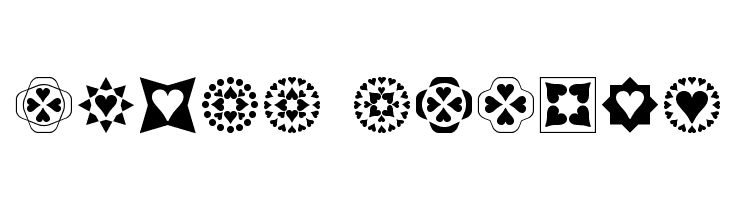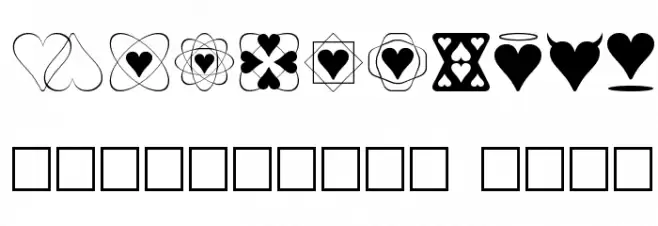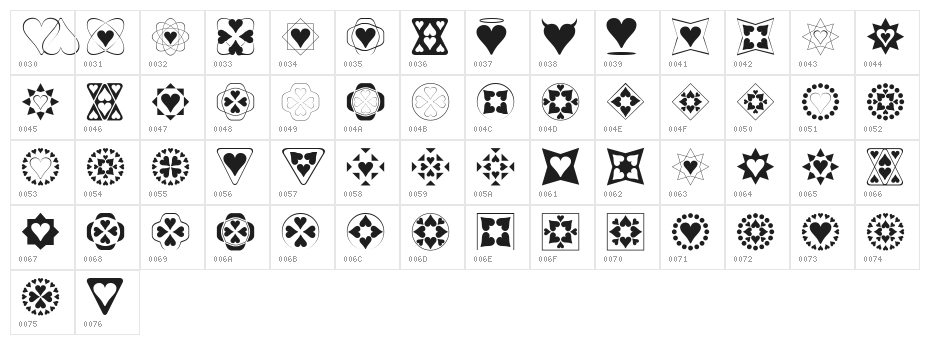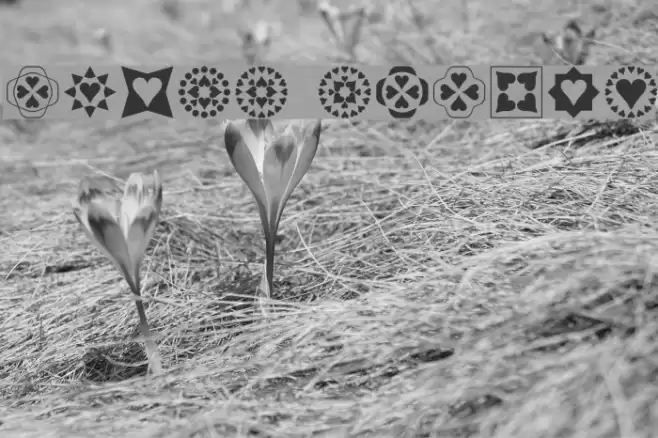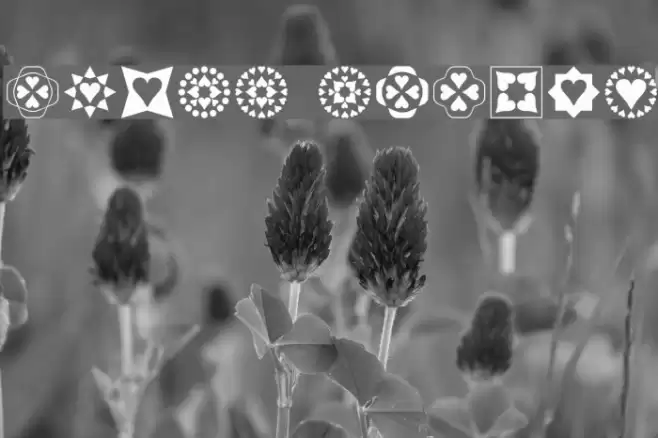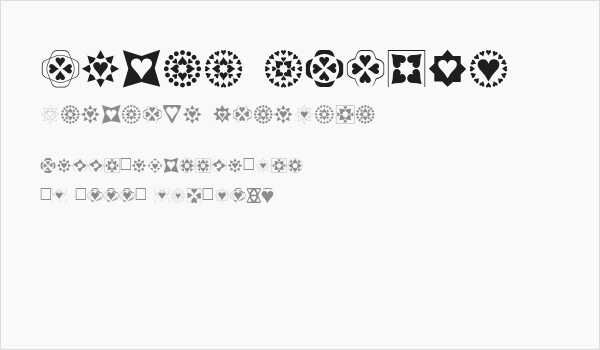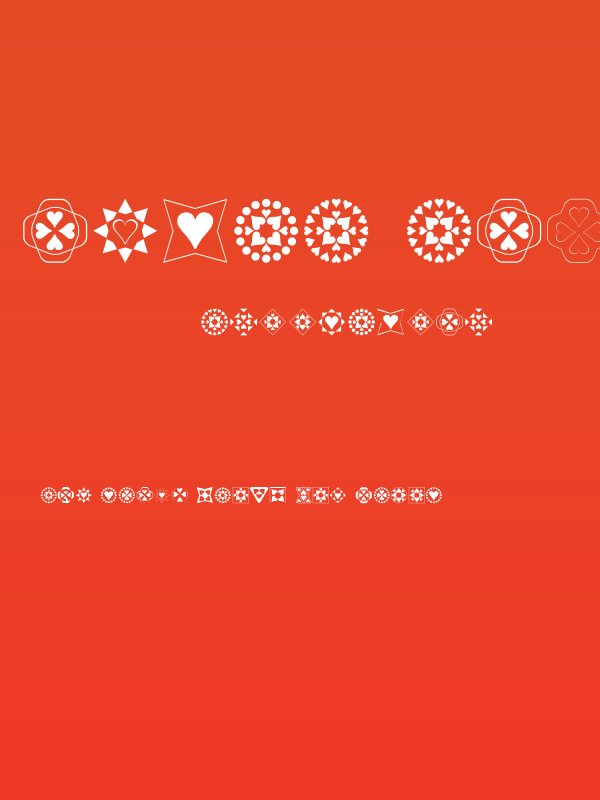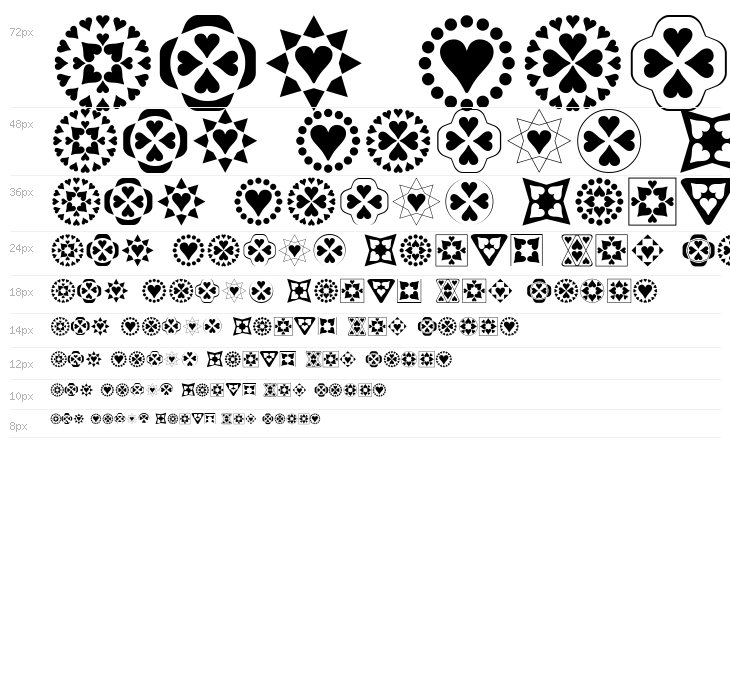
Heart Things Font
Heart Things Description
A decorative dingbat font featuring a variety of heart-themed geometric shapes, including hearts combined with stars, circles, diamonds, and other abstract forms. The glyphs are bold and outlined, with both filled and unfilled elements, and some include playful or whimsical motifs such as halos and horns.
| Overall Style | Decorative, Playful, Whimsical |
| Use Case | Decorative elements, Icons, Borders, Themed graphics |
| Proposed Projects | Greeting cards, wedding invitations, romantic event branding, scrapbooking, decorative borders, playful logos. |